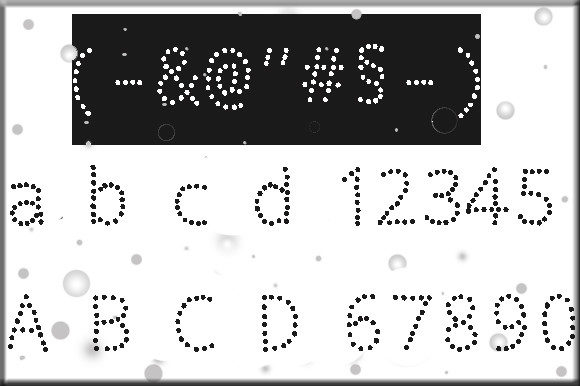
Dotted Font: Adding a Touch of Whimsy to Your Designs
In the world of typography, fonts play a crucial role in conveying the tone and personality of a design. Whether you’re a graphic designer, a crafty DIY enthusiast, or a small business owner, finding the right font can make all the difference. If you’re looking for a font that adds a touch of whimsy and playfulness to your designs, look no further than the Dotted Font.
What is Dotted Font?
Dotted Font is a unique and eye-catching display font that features, as the name suggests, dots instead of traditional lines. This original look makes it perfect for a wide range of crafty ideas, from letterheads and titles to stationery and more. The font’s distinctive appearance is sure to grab attention and add a touch of personality to any design.
Characteristics of Dotted Font
So, what makes Dotted Font so special? Here are just a few of its key characteristics:
- Unique and eye-catching: The dotted design of this font makes it stand out from more traditional fonts.
- Playful and whimsical: The font’s playful appearance makes it perfect for designs that require a touch of personality.
- Versatile: Dotted Font can be used for a wide range of design projects, from letterheads and titles to stationery and more.
- Easy to read: Despite its unique design, Dotted Font is still easy to read, making it perfect for use in titles and headings.
Uses for Dotted Font
So, what can you use Dotted Font for? The possibilities are endless! Here are just a few ideas to get you started:
- Letterheads and titles: Add a touch of personality to your letterheads and titles with Dotted Font.
- Stationery: Use Dotted Font to create unique and eye-catching stationery, such as greeting cards and invitations.
- Signs and posters: The font’s bold and playful appearance makes it perfect for use in signs and posters.
- Digital designs: Dotted Font can also be used in digital designs, such as social media graphics and website headers.
Tips for Using Dotted Font
Here are a few tips for getting the most out of Dotted Font:
- Use it sparingly: While Dotted Font is eye-catching, it can be overwhelming if used too much. Use it sparingly to add a touch of personality to your design.
- Experiment with colors: The font’s dotted design makes it perfect for use with a range of colors. Experiment with different colors to find the perfect combination.
- Pair it with other fonts: Dotted Font can be paired with other fonts to create a unique and eye-catching design.
In conclusion, Dotted Font is a unique and eye-catching display font that adds a touch of whimsy and playfulness to any design. Its distinctive appearance makes it perfect for a wide range of crafty ideas, from letterheads and titles to stationery and more. Whether you’re a graphic designer, a crafty DIY enthusiast, or a small business owner, Dotted Font is sure to become a favorite in your design arsenal.
With its unique and eye-catching design, Dotted Font is sure to add a touch of personality to any design. So why not give it a try and see the difference it can make?